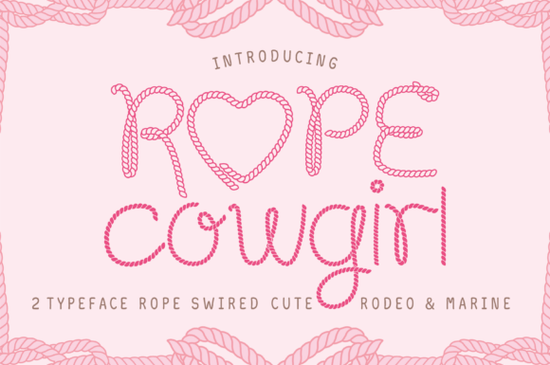
If you need a typeface that instantly communicates a rugged, handcrafted feel, Rope Cowgirl might be the one you’ve been searching for. The Rope Cowgirl Font is built to look like twisted rope, so every letter carries the texture and character of natural fiber. This makes it a solid choice for anyone designing around western, nautical, or vintage circus themes and it stands out in a sea of clean sans-serifs.
What does Rope Cowgirl actually look like up close?
At first glance, the letterforms seem to be made of strands that twist into curves and straight stems. The rope effect isn’t just an outline; hollow spaces and overlapping paths give each glyph the illusion of genuine three‑dimensional cord. Capitals have small natural kinks and uneven spots, so the typeface never feels too polished. Lowercase letters follow the same logic and keep the texture readable even at moderate sizes. When you zoom in, you’ll notice subtle shadows and highlights baked into the design detail that helps the font pop on print materials like mug wraps, T‑shirt transfers, and invitation cards.
Which projects get the most out of a rope‑textured font?
This style fits right in when you need a rough‑and‑tumble, outdoorsy mood. Think of event flyers for rodeos, barbecue cook‑offs, or coastal seafood festivals. It also works well for marine‑themed branding boat names, marina signage, and yacht club menus because the rope instantly connects to knots and rigging. Educators and crafters often use it for classroom bulletin boards and scout troop materials. If you run a small business that prints custom apparel, you’ll find the font adds charm to hats, bandanas, and tote bag designs without competing with your main artwork.
Is Rope Cowgirl legible enough for body text?
Not really and that’s okay. This is a display font through and through. The intricate rope twists demand space, so paragraphs set in this style become tiring to read. However, it shines in headlines, logotypes, and short phrases. For a party invitation that reads “Saddle Up!” in 72‑point type, the clarity is excellent because each letter remains distinct. When you need to pair it with a longer message, choose an unadorned serif or a sturdy slab serif for the details. That contrast lets the rope effect stay special and keeps the overall layout professionally balanced.
How does it behave with different cut files and print methods?
Many crafters use this font in Cricut Design Space, Silhouette Studio, and similar software. The outline style means your cutting machine will trace the outer edge of each rope strand. For vinyl decals, you’ll want to test smaller sizes first because overly delicate loops might not weed cleanly. With sublimation printing, the texture stays crisp because the design transfers smoothly onto mugs, polyester shirts, and coasters. Screen printers sometimes adjust the stroke weight to avoid filling in the inner gaps, but overall the vector files handle scaling without losing the rope details.
Can you use Rope Cowgirl for branding without it looking gimmicky?
Yes, if you apply it selectively. A bar or grill with a ranch theme could use the font for its primary wordmark and then switch to a clean sans‑serif for the tagline and contact details. A fishing guide service might place the boat name in Rope Cowgirl on merchandise while keeping the website navigation in a simple font. The key is to limit the rope effect to one focal element so the brand still feels professional. Avoiding drop shadows or extra outlines also helps the font’s own texture do the work.
How do I combine it with other fonts and graphics?
Because Rope Cowgirl carries so much texture, pair it with clarity. Here are a few proven combinations:
- Western layout: Rope Cowgirl for the headline + a plain serif (like a regular old‑style font) for dates and details.
- Nautical suite: Use it for the boat name, then set coordinates in a simple monospaced typeface to give a clean, modern chart feel.
- Circus poster: Mix with a bold circus‑serif body text and keep the rope words large for maximum impact.
If you’re adding illustrations, line drawings of cacti, anchors, or cowboy boots complement the font’s character without competing. Watercolor textures underneath can soften the look for wedding invitations.